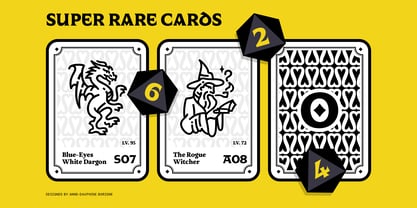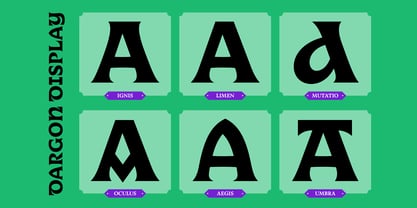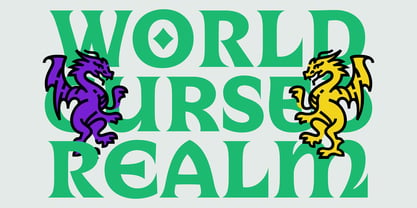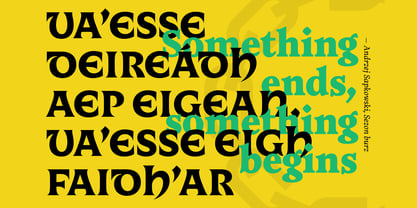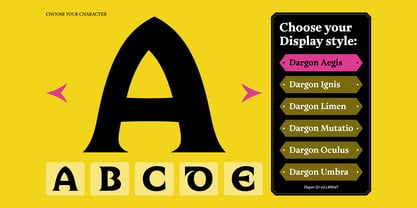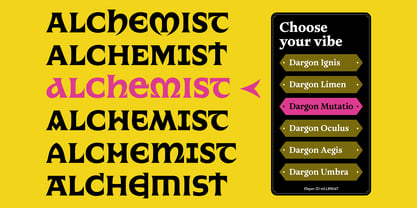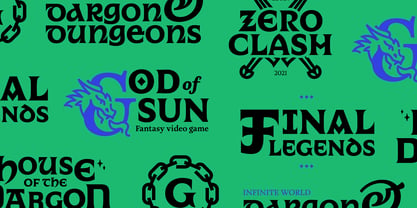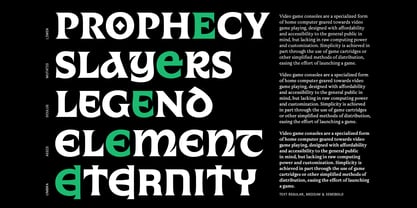
Dargon
Carved by light, Anne-Dauphine Borione’s Dargon is an epic type family made by and for fantasy themes. Blending medieval influences with a distinctly forward-looking spirit, Dargon’s future medieval aesthetic evokes legendary worlds, heroic adventures, and imagined realms yet to come. Its expressive forms bring a sense of wonder, mystery, and grandeur to any design.
Whether used for books, games, visual identities, editorial projects, or immersive digital experiences, Dargon is the perfect typographic companion for fantastic graphic quests of all kinds, on screens or in print. Celebrated for its originality and craftsmanship, Dargon was awarded the 2024 Gerard Unger Scholarship.